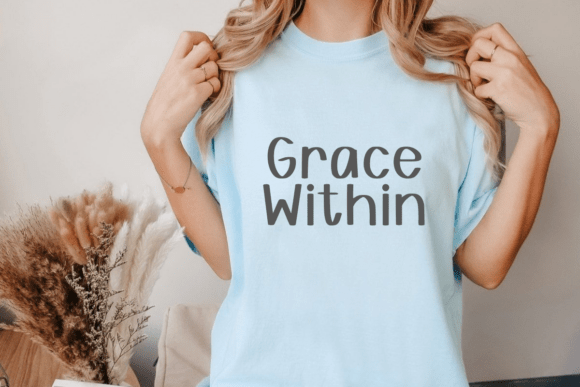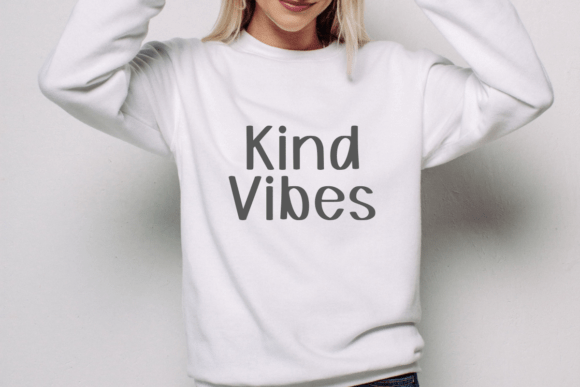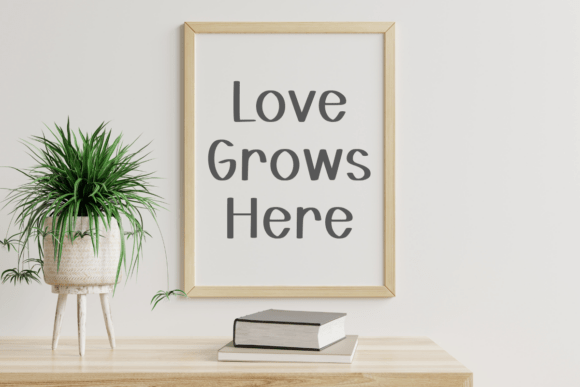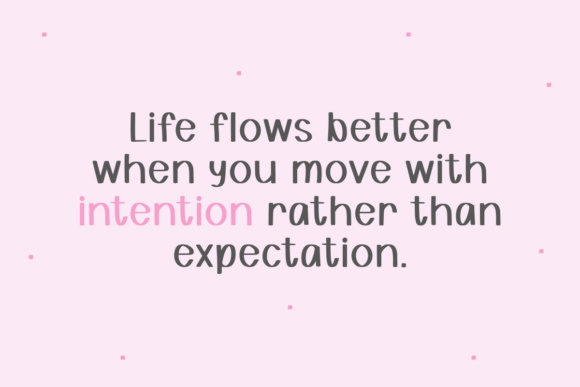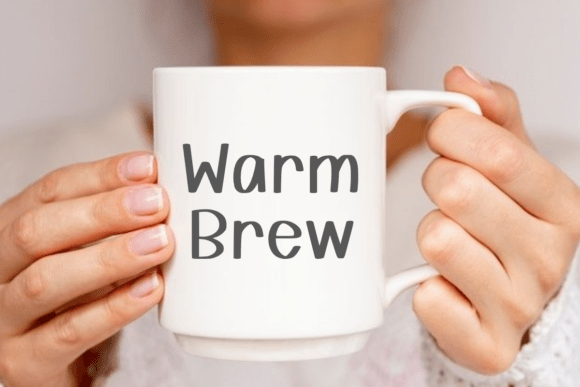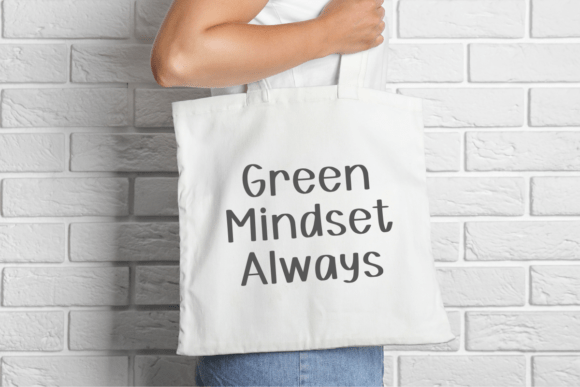
Cupids Notes Font: The Perfect Handwritten Style for Crafty Projects
Are you a crafter, designer, or DIY enthusiast looking for a font that can add a personal touch to your projects? Look no further than Cupids Notes Font, a delightful sans-serif handwriting font that exudes a soft, friendly, and natural look. In this article, we’ll dive into the features and benefits of Cupids Notes typeface, and explore how it can elevate your craft projects, planners, stickers, and more.
What is Cupids Notes Font?
Cupids Notes Font is a carefully crafted sans-serif handwriting font that boasts a warm, handcrafted feel. Its simple strokes and smooth curves make it an ideal choice for a wide range of creative projects, from kids’ worksheets and classroom printables to DIY designs and scrapbooking. This font is designed to bring a touch of whimsy and playfulness to your work, making it perfect for crafting moms and designers who love adorable handwritten styles.
Key Features of Cupids Notes Font
- Soft and Friendly Look: Cupids Notes Font features a soft, friendly, and natural look that is sure to capture the hearts of your audience.
- Handcrafted Feel: This font brings a warm, handcrafted feeling to your projects, making them stand out from the crowd.
- Easy to Cut: With its simple strokes and smooth curves, Cupids Notes Font is easy to cut using popular cutting machines like Cricut and Silhouette.
- Versatile: This font is perfect for a wide range of projects, including quotes, greeting cards, kids’ labels, coloring pages, worksheets, bullet journals, scrapbooks, and more.
Use Cases for Cupids Notes Font
Cupids Notes Font is an incredibly versatile typeface that can be used in a variety of creative projects. Here are some ideas to get you started:
- Craft Projects: Use Cupids Notes Font to add a personal touch to your craft projects, such as knitted items, handmade cards, and DIY decorations.
- Planners and Organizers: Add a touch of whimsy to your planners and organizers with Cupids Notes Font, perfect for creating custom layouts and designs.
- Stickers and Labels: Create adorable stickers and labels for kids’ projects, classrooms, and DIY crafts using Cupids Notes Font.
- Kids’ Worksheets and Coloring Pages: Use Cupids Notes Font to create engaging and fun worksheets, coloring pages, and activity sheets for kids.
- Bullet Journals and Scrapbooks: Add a personal touch to your bullet journals and scrapbooks with Cupids Notes Font, perfect for creating custom layouts and designs.
Why Choose Cupids Notes Font?
With so many fonts available, why choose Cupids Notes Font? Here are just a few reasons why this typeface stands out:
- Unique and Playful: Cupids Notes Font offers a unique and playful style that’s sure to capture the attention of your audience.
- Easily Readable: This font is designed to be easily readable, making it perfect for use in a variety of projects, from kids’ worksheets to bullet journals.
- Customizable: With Cupids Notes Font, you can easily customize your projects to fit your personal style and brand.
Cupids Notes Font is a delightful sans-serif handwriting font that’s perfect for crafty projects, planners, stickers, and more. With its soft, friendly, and natural look, this font brings a warm, handcrafted feeling to your work. Whether you’re a crafter, designer, or DIY enthusiast, Cupids Notes Font is an excellent choice for adding a personal touch to your projects. So why wait? Try Cupids Notes Font today and see how it can elevate your creative projects to the next level!